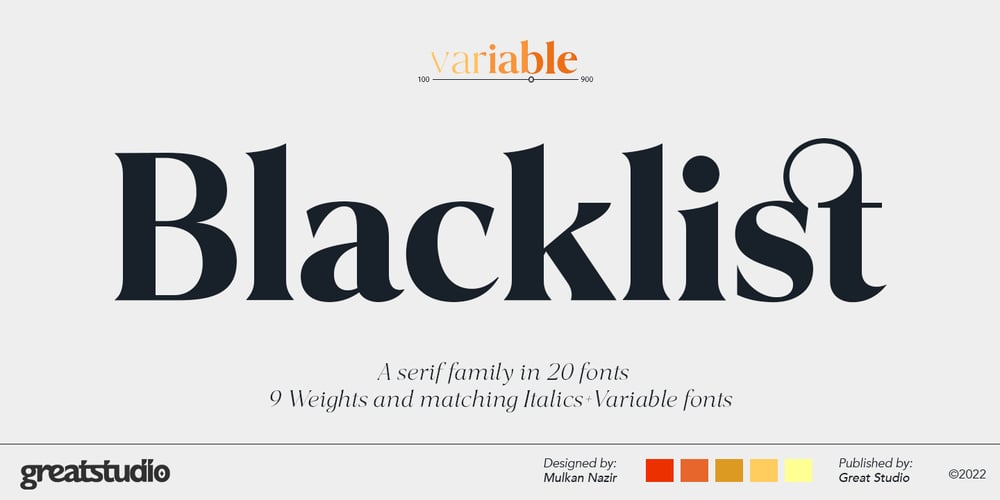
Blacklist Font Family was designed by Mulkan Nazir and published by Great Studio. Blacklist contains 20 styles and family package options. Blacklist is a high-contrast typography inspired by transitional and contemporary typography. Fonts extend their use by giving weights ranging from thin to black. The natural curve, a swollen and sloping stem, grows in character as the font gains weight. While the thinner weight has lowered contrast and optical correction to create a warm and soft look. Featuring beautiful italics, excellent weight and extensive language support.Blacklist excels in display settings such as headlines, titles, branding projects, Logo design, packaging, magazine headings, advertising, short or long text. Blacklist also comes with two versions of Variable Regular and Italic to make it easier for designers to explore and perfect beautiful designs, unearthing lots of visual tones and hidden secrets.